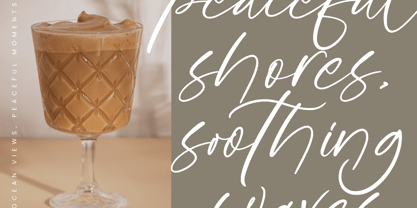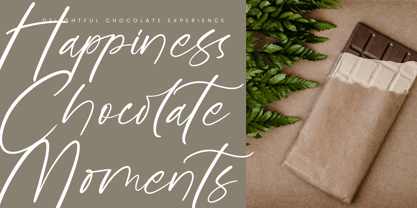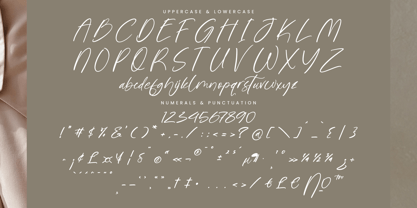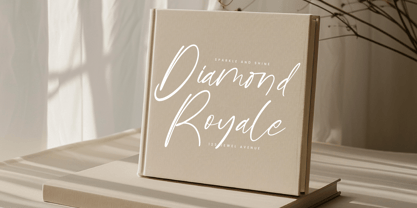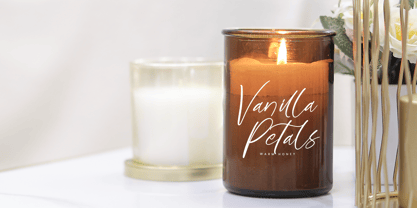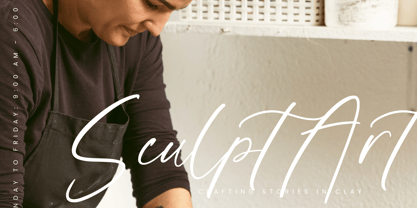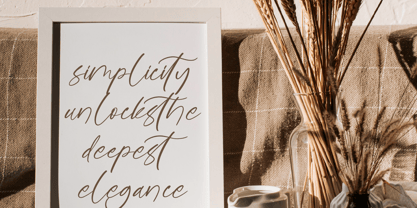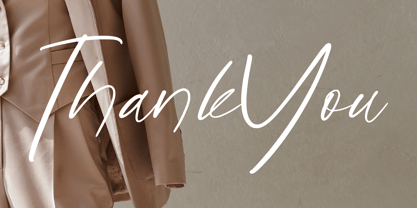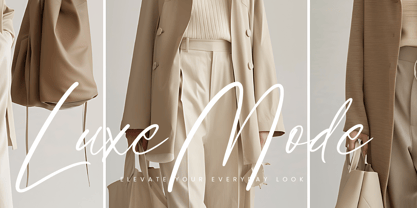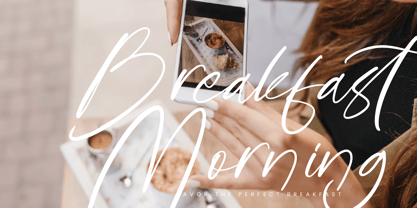
Goldbrush Delights
by Integritype
The Goldbrush Delights Font Family was designed by Ranndy Rizky Febrian and published by Integritype. Goldbrush Delights contains 2 styles and family package options. More about this family
Goldbrush Delights - Modern Handwritten Font, from Integritype Studio, perfect for any project like: logos, branding projects, homewares designs, product packaging, mugs, quotes, posters, shopping bags, t-shirts, covers books, business cards, invitation cards, greeting cards, labels, photography, watermarks, special events and all your other luxury projects that require a premium taste.